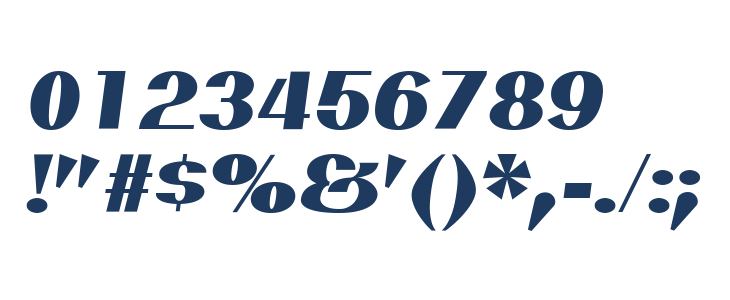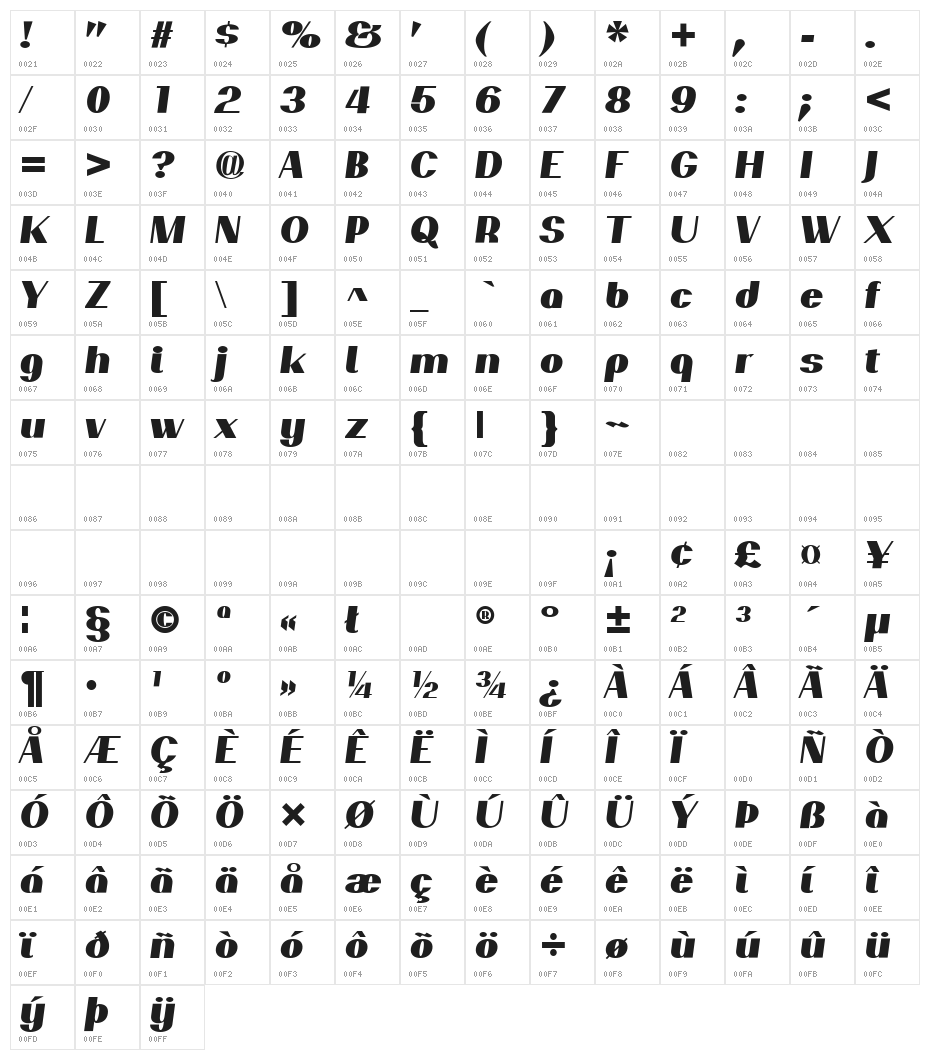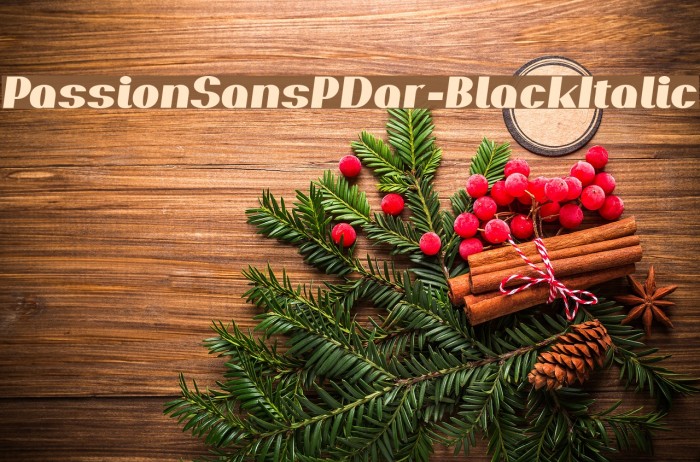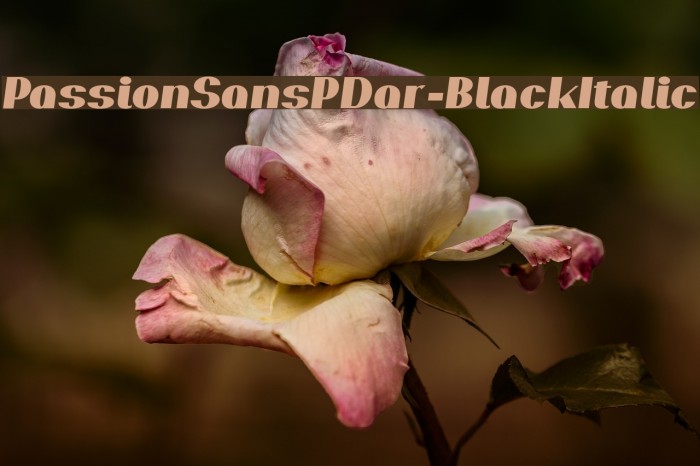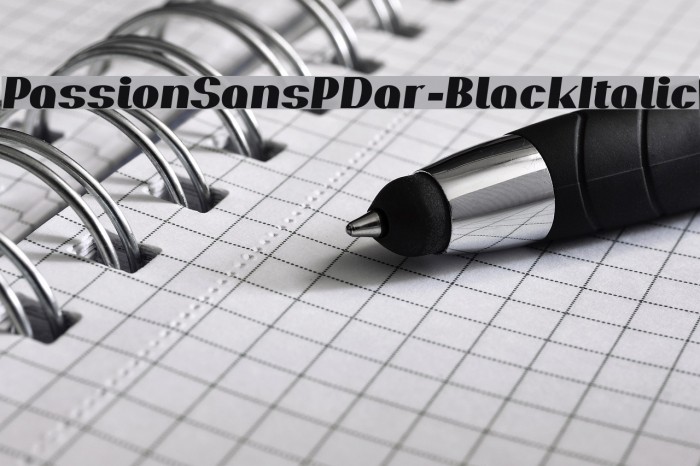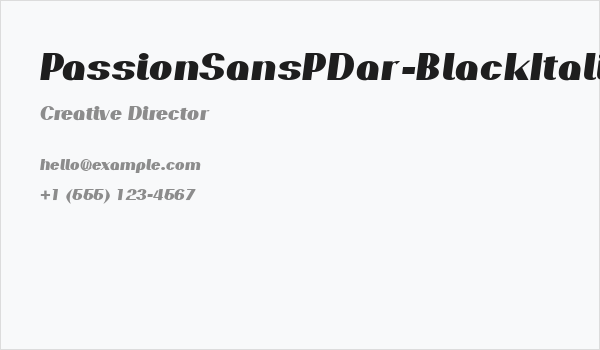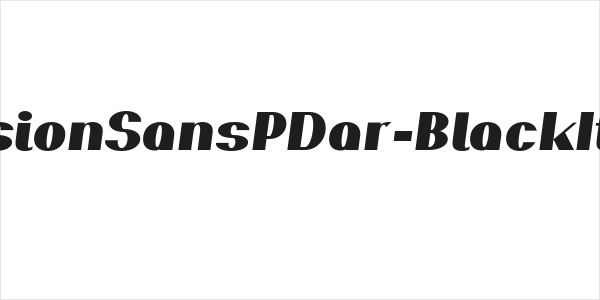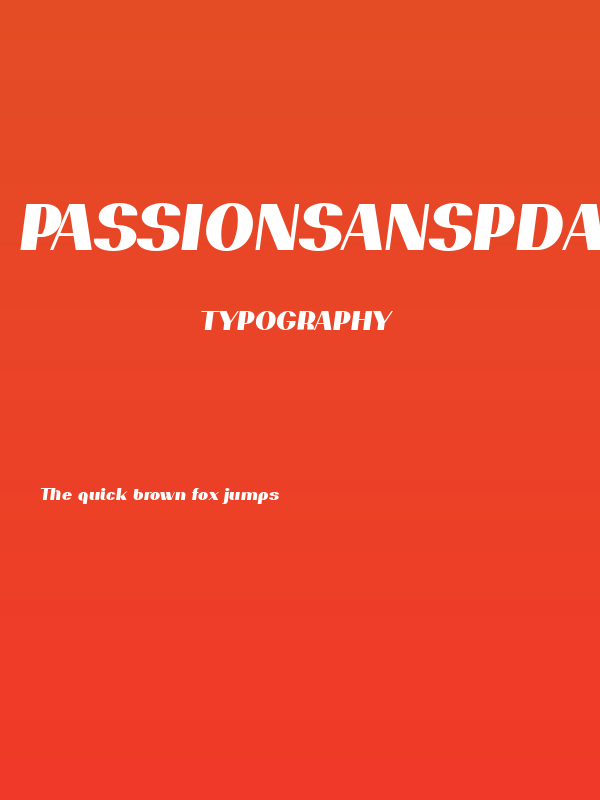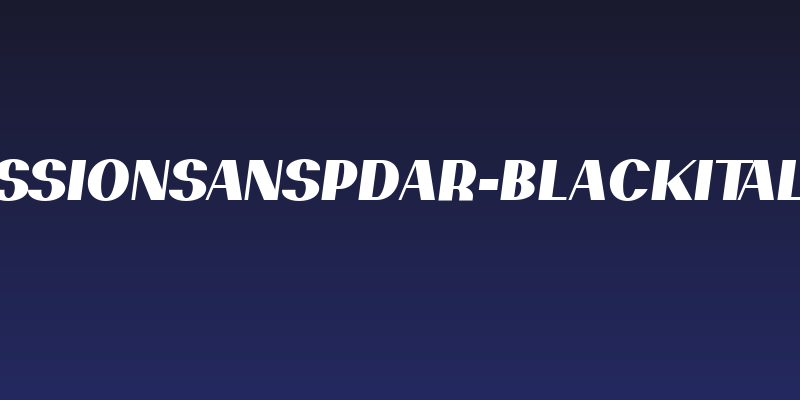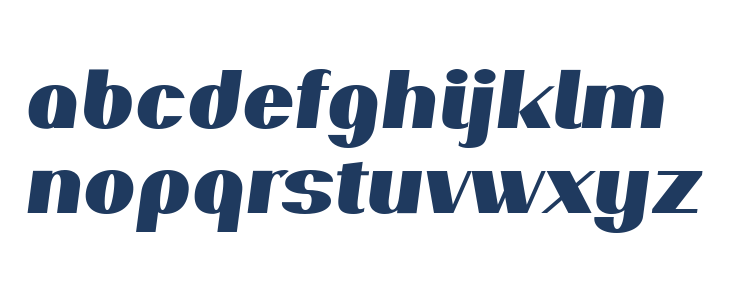
PassionSansPDar-BlackItalic Font
PassionSansPDar-BlackItalic Description
This font features a bold and dynamic style with a pronounced italic slant, giving it a sense of movement and energy. The characters are thick and robust, with a strong presence that commands attention. The strokes are smooth and consistent, providing a clean and polished look. The uppercase letters are slightly taller than the lowercase, maintaining a balanced proportion. The numerals are clear and easy to read, matching the boldness of the alphabetic characters. Special characters are designed with the same bold and italic characteristics, ensuring uniformity across all glyphs.